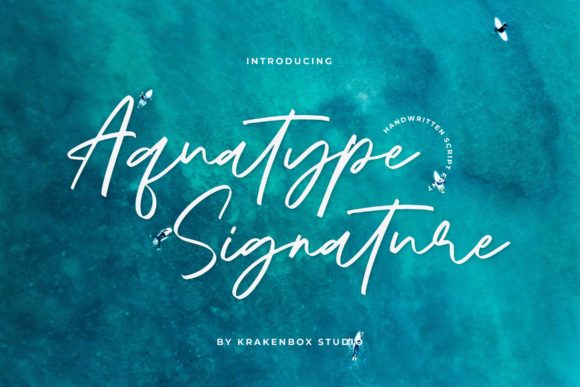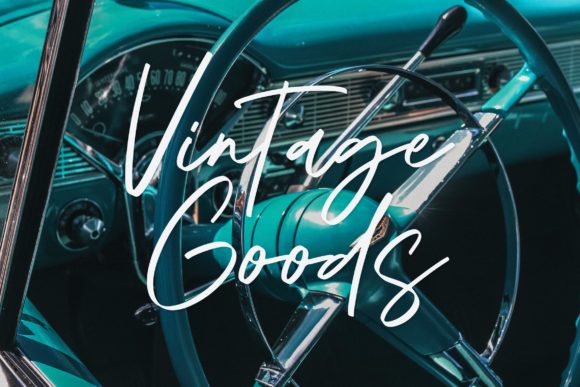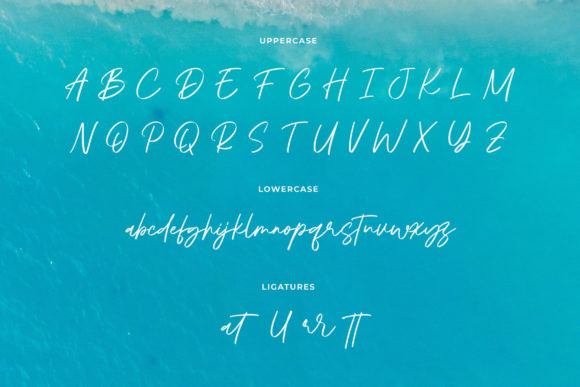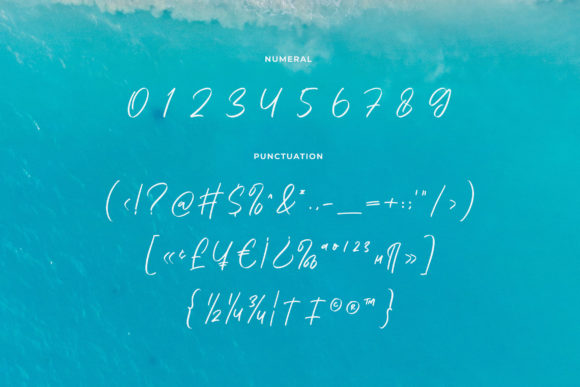
About Aquatype Signature Font
Aquatype Signature is a captivating and free-flowing script font that has been meticulously crafted to infuse a sense of sophistication and elegance into a wide array of design projects. With its fluid strokes and harmonious character, Aquatype Signature effortlessly emanates high-quality vibes, making it an ideal choice for packaging products, invitation cards, flyers, mockups, event posters, and various other creative endeavors.
This font’s innate charm and graceful flow make it a perfect fit for capturing attention on packaging products, setting a refined tone on invitation cards, creating visually compelling flyers, and adding a touch of glamour to event posters. Its versatile design seamlessly integrates with different design elements, ensuring that each project exudes a sense of professionalism and allure.
Aquatype Signature’s beauty extends beyond its aesthetic appeal to its versatility. Its well-balanced structure enables it to adapt harmoniously to diverse design contexts, making it suitable for a wide spectrum of creative undertakings. Whether you’re aiming to craft luxurious wedding invitations, captivating mockups, or engaging social media graphics, Aquatype Signature is poised to elevate the visual impact of your work.
The seamless interplay of fluid strokes and balanced characters within Aquatype Signature ensures both legibility and visual charm. Its effortless elegance adds a unique touch to your text, capturing the viewer’s gaze and leaving a lasting impression. This level of craftsmanship and attention to detail demonstrates Aquatype Signature’s ability to add a touch of sophistication to even the simplest of designs.
Aquatype Signature’s adaptability showcases its design excellence, enabling it to complement various design elements and layouts. From bold headlines to delicate captions, this font effortlessly transitions between roles, enhancing the visual appeal of your creations and imbuing them with a sense of class.
With its free-flowing nature and balanced character, Aquatype Signature is a testament to creativity and innovation. Its ability to convey high-quality vibes ensures that it enhances the impact of your projects, leaving a memorable and resonant impression on your audience. Whether you’re working on packaging, invitations, flyers, or any other design, Aquatype Signature’s graceful allure and versatile design will help you achieve stunning and captivating results.